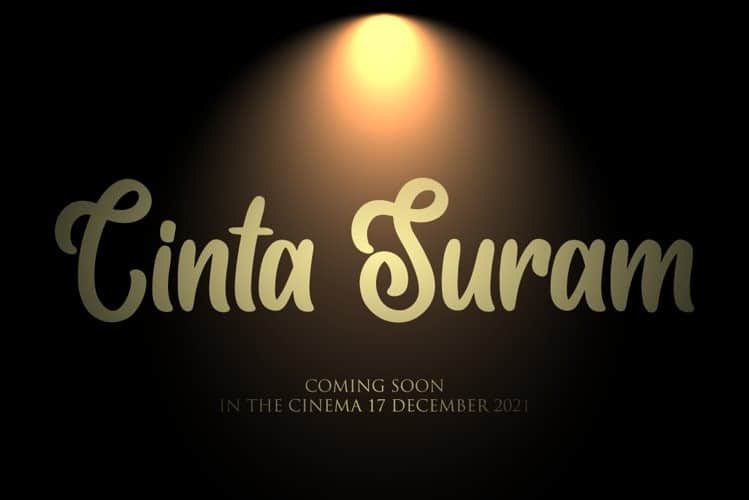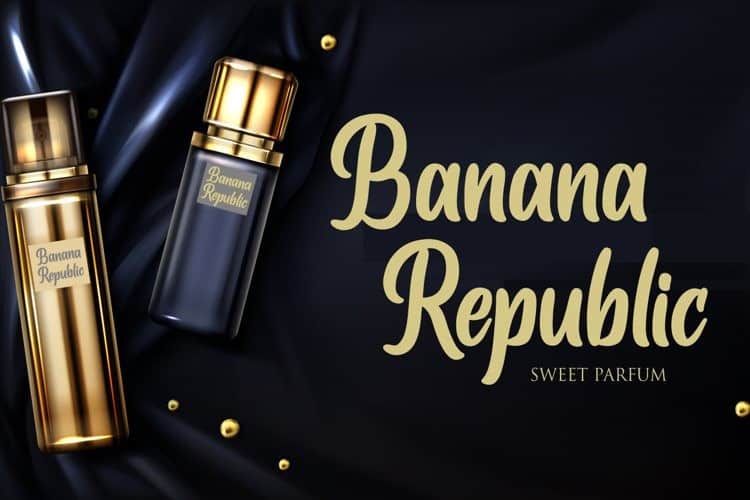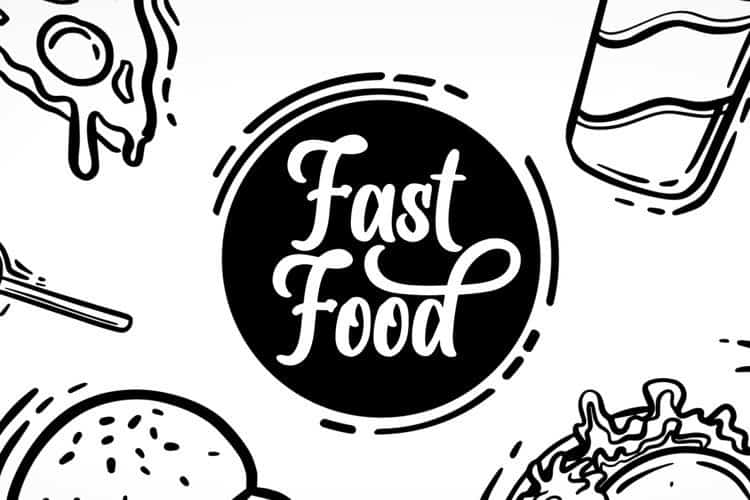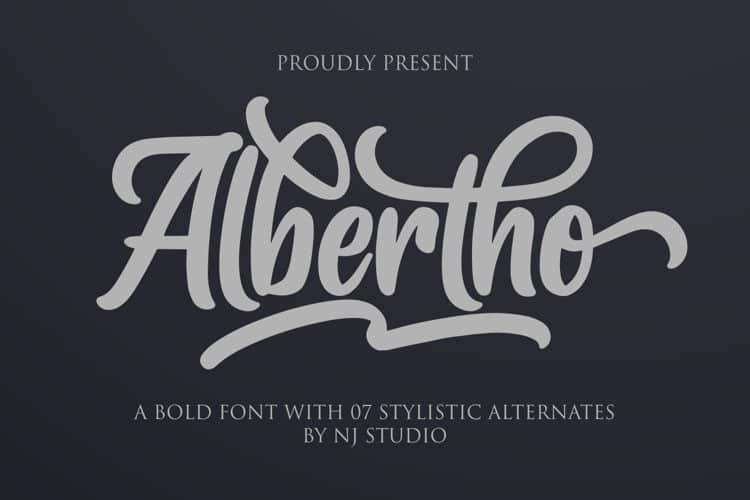
Albertho Script Font
Albertho Script Font is a script typeface with beautiful romantic calligraphy style. Whether you’re looking for fonts for calligraphy scripts for DIY projects, Styll Love will turn any creative idea into a true piece of art!. It’s designed and shared by NJ Studio. Albertho A Bold Fonts are font designs that are made for various vector designs, printing such as digital wedding invitations, blogs, online shops, social media, while printing can be used in the field of product clothing, accessories, bags, pins, logos, business cards, watermarks and many others …